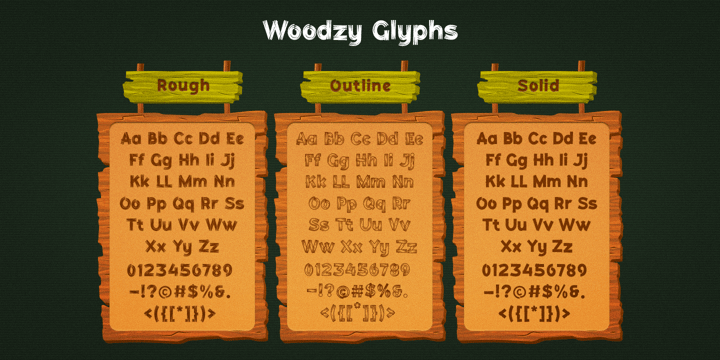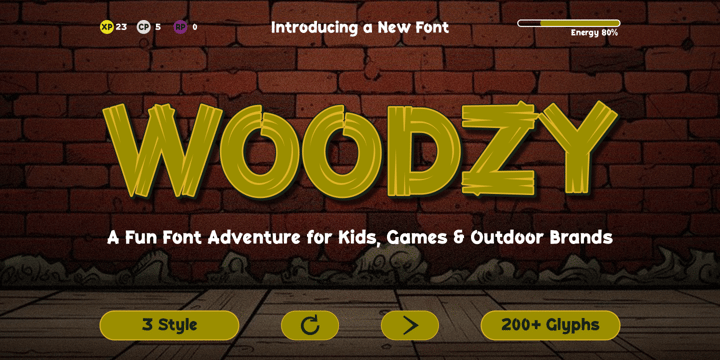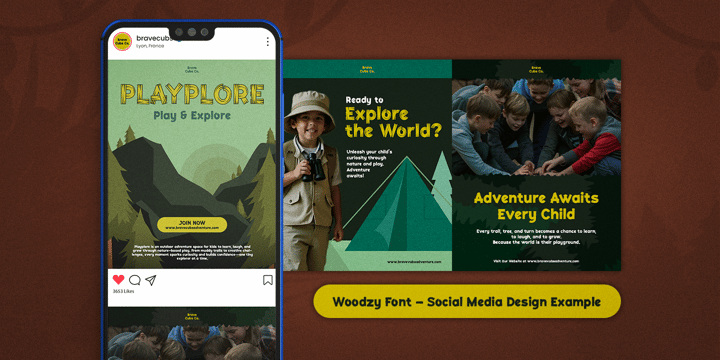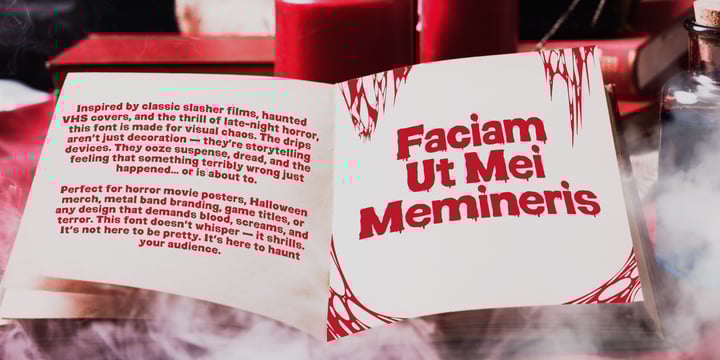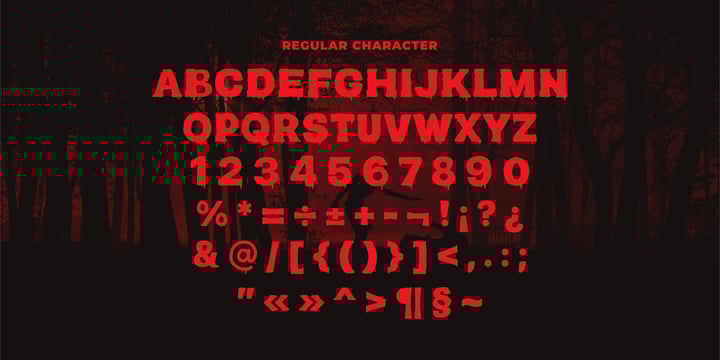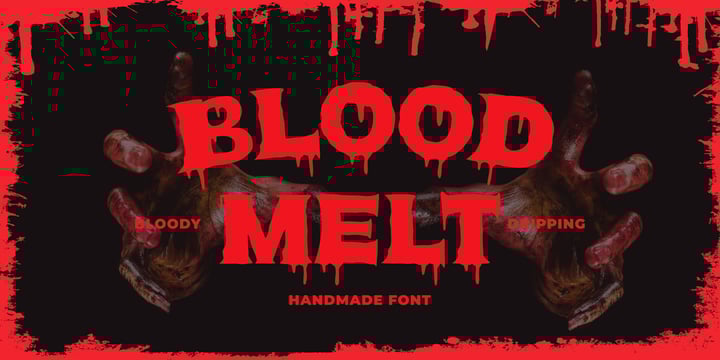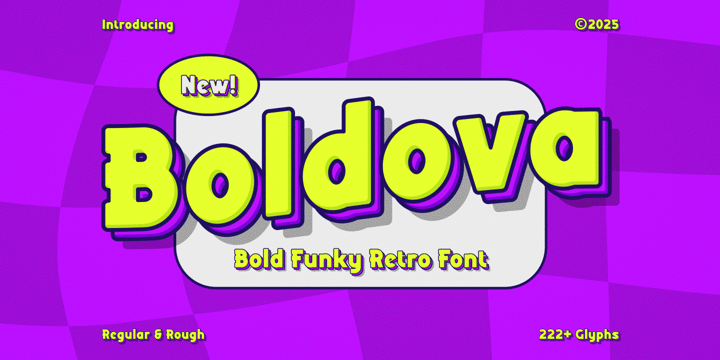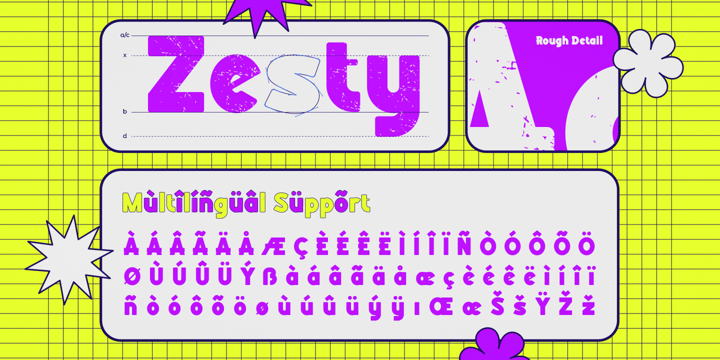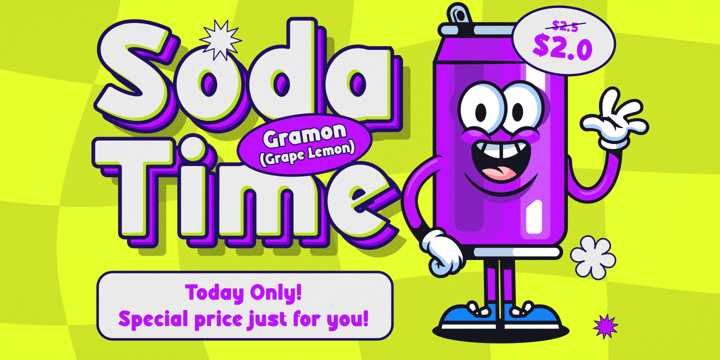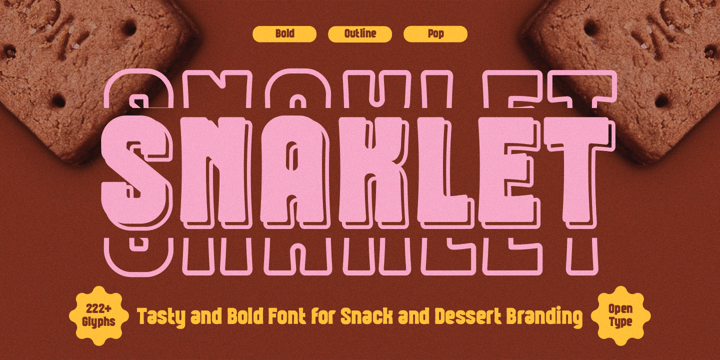
Asya Fatkhul Illah
im is a type designer based in Kendal, Indonesia. Her work focuses on expressive, hand-drawn typefaces designed for children’s media, casual games, and food & beverage packaging. She also explores serif and sans serif styles to create fonts that are both versatile and visually engaging. Im is the founder of Stepbytype, an independent foundry dedicated to producing distinctive, high-quality typefaces.